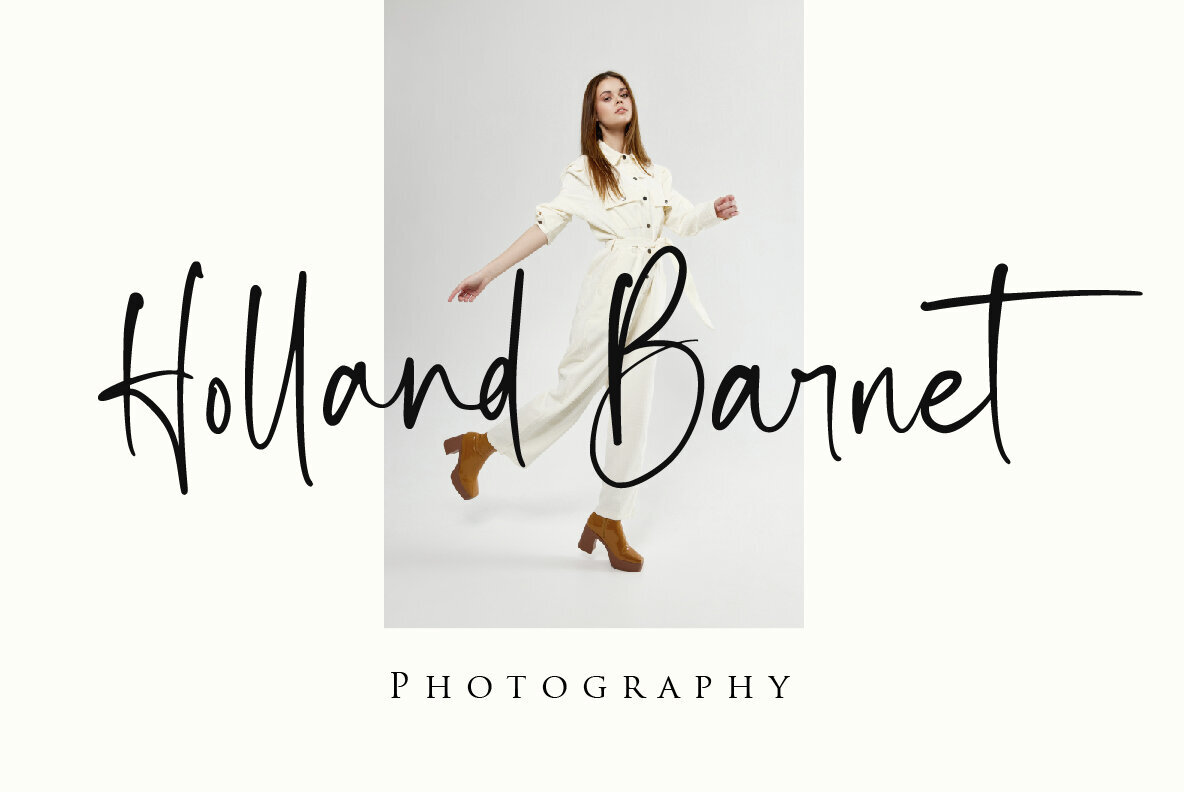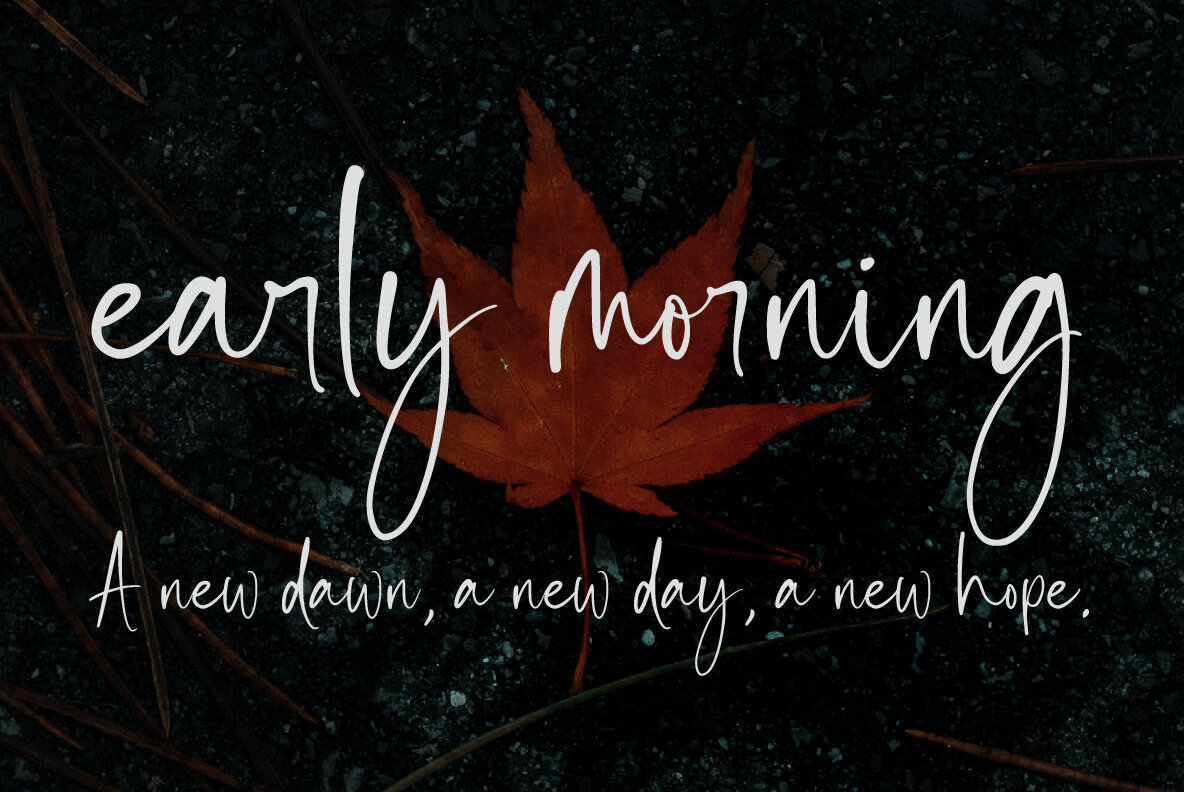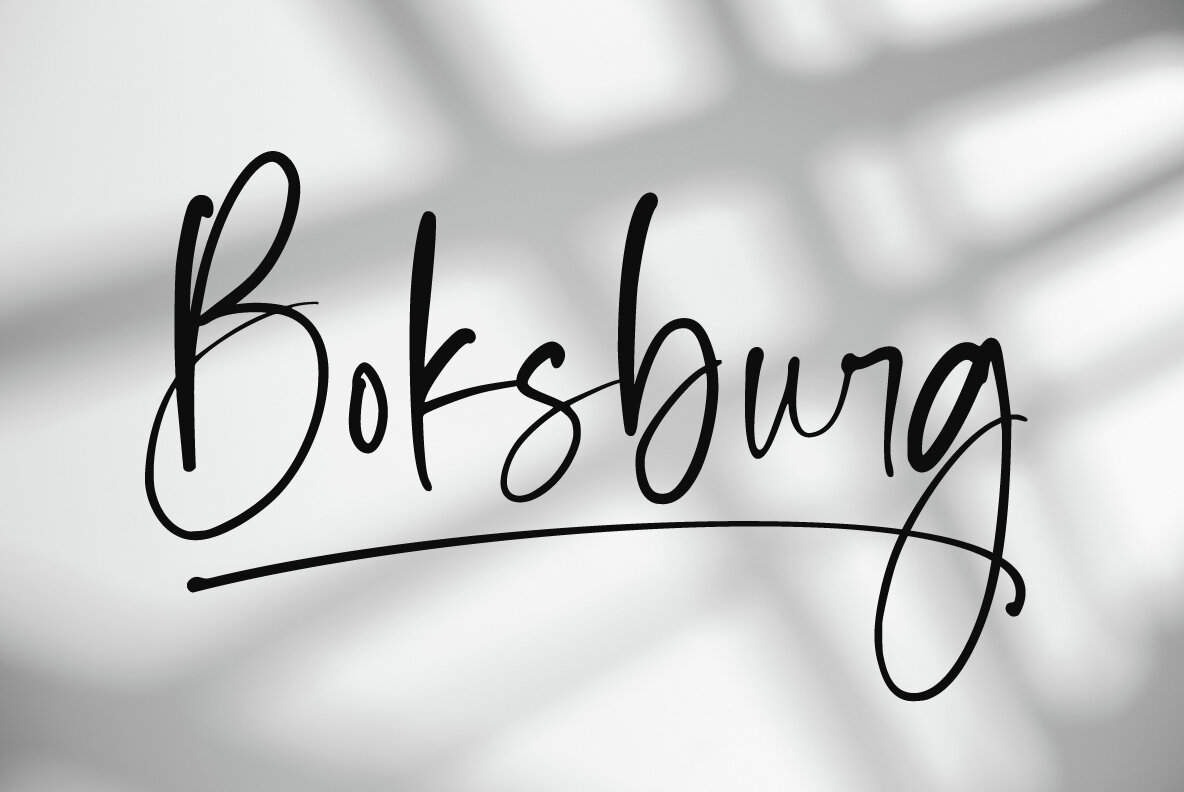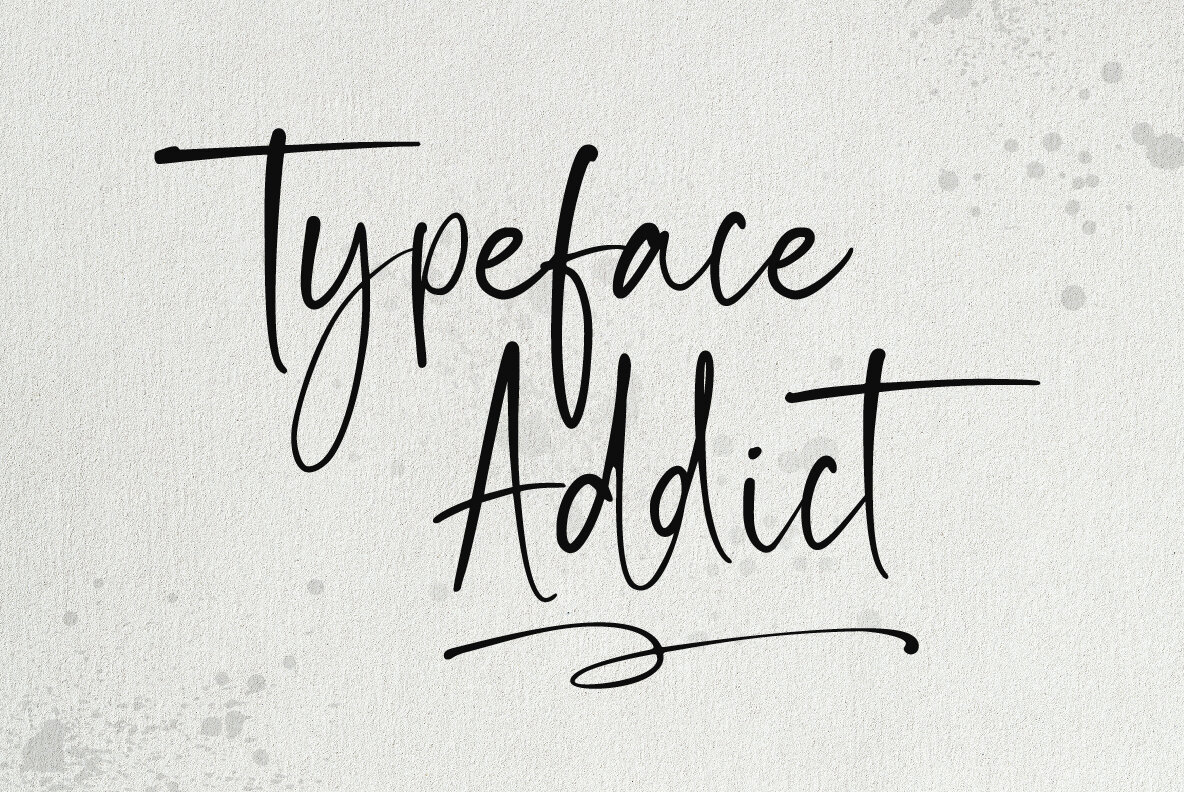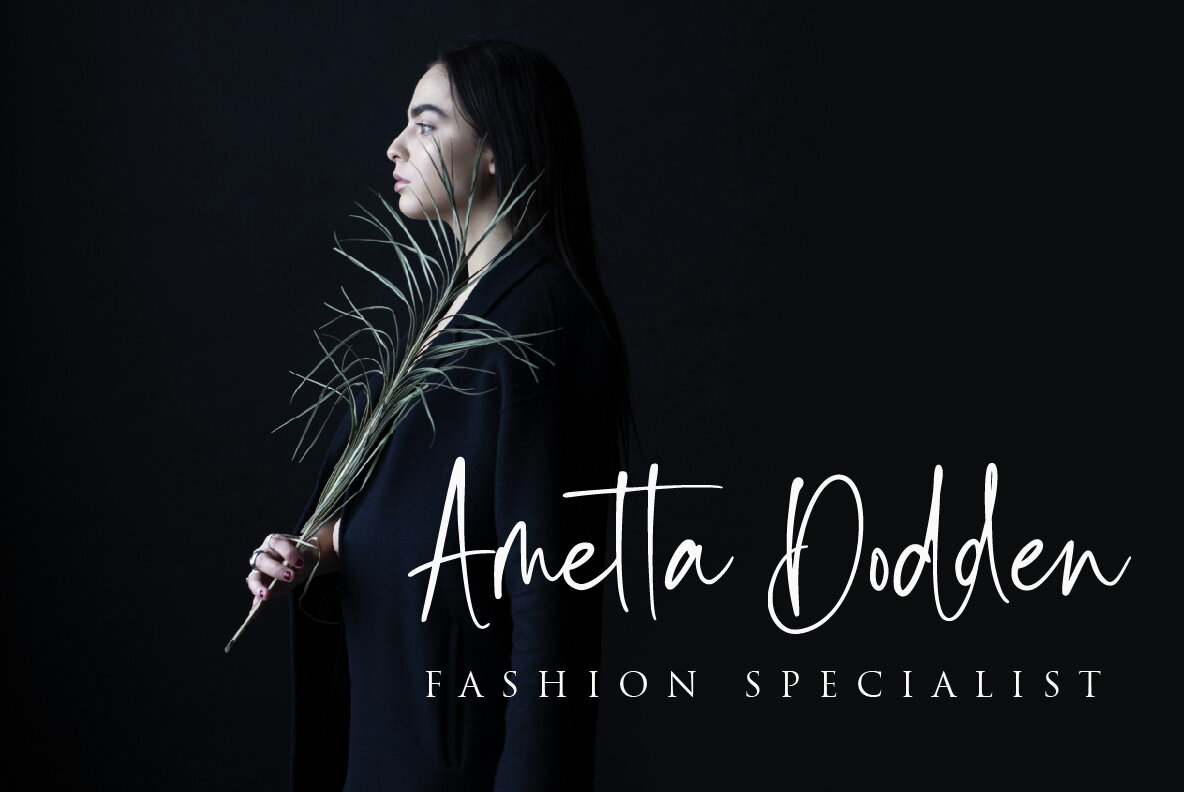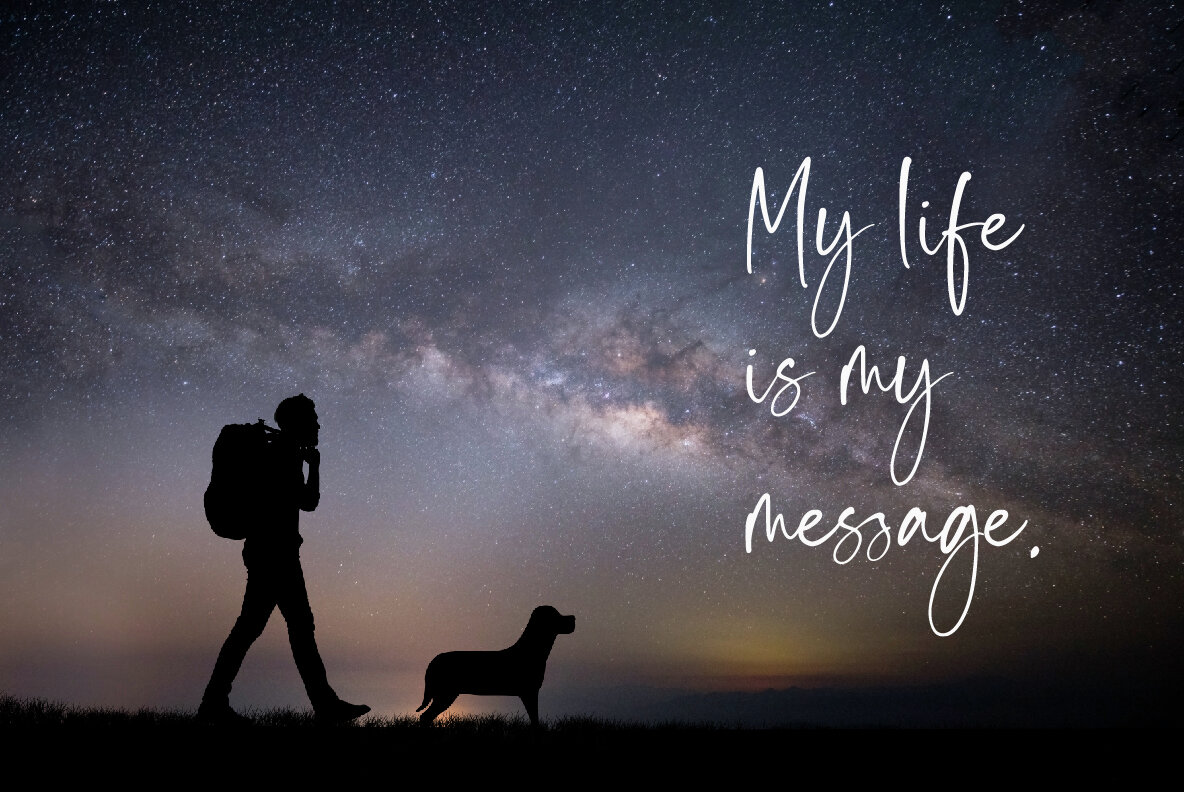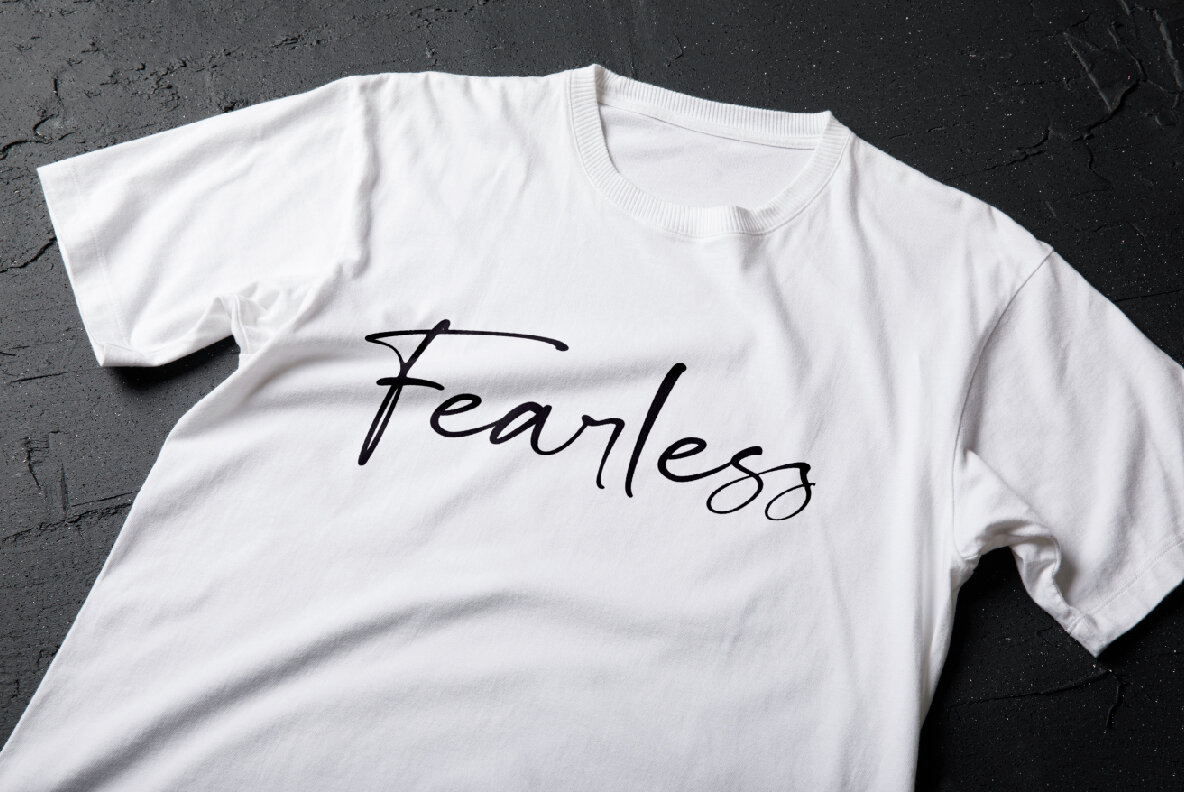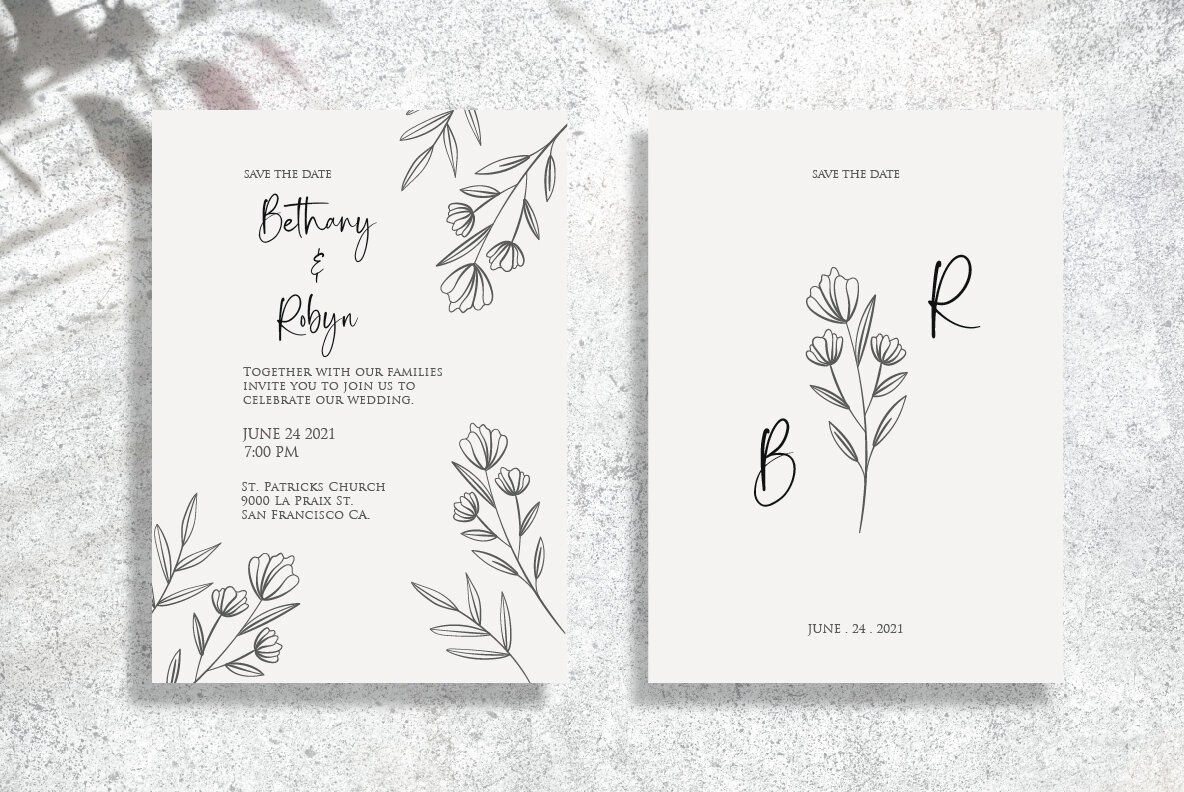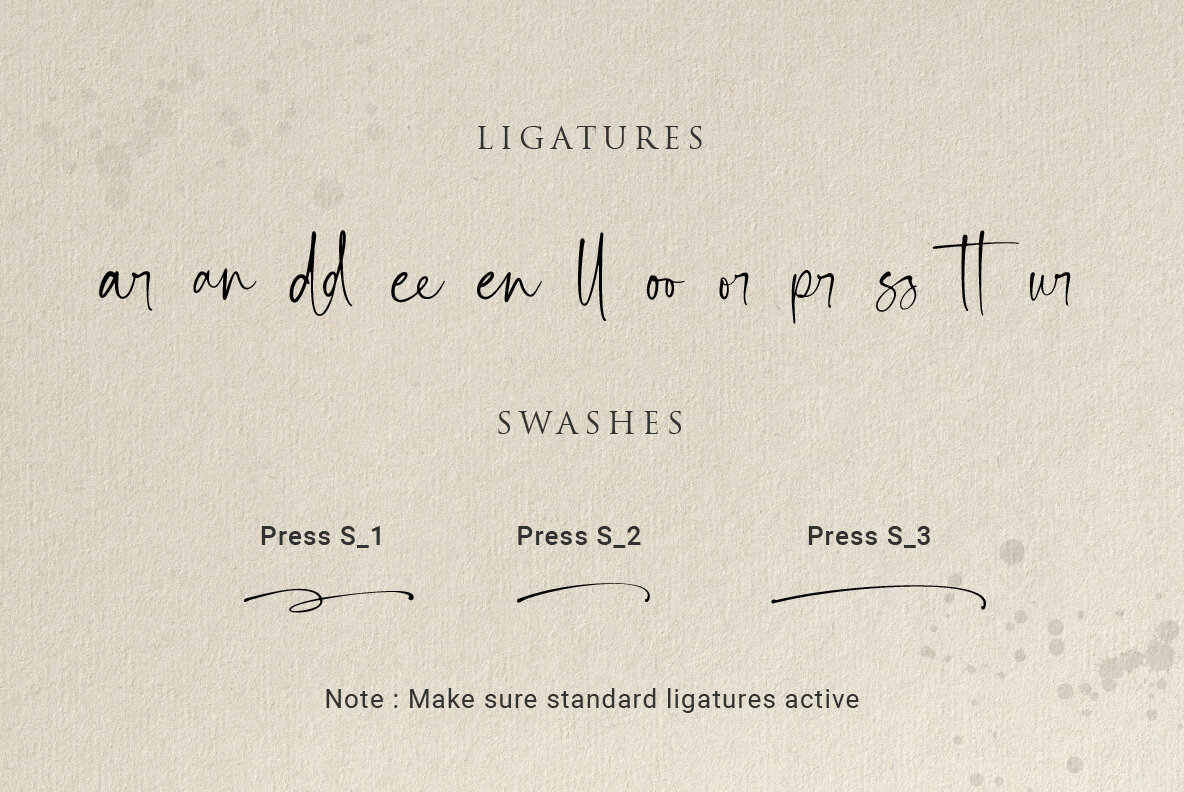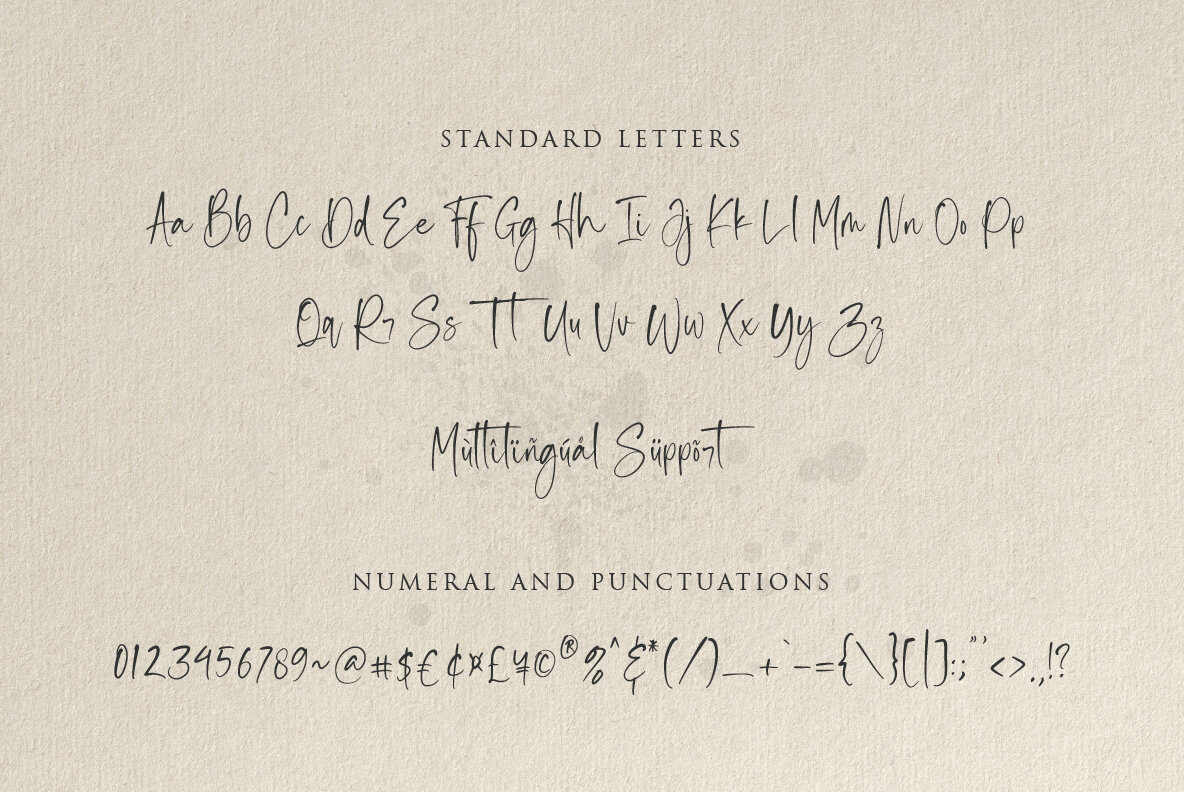
Inkgasm Font
Inkgasm Regular
Inkgasm is a casual script font tailored for a wide array of projects. Ideal for branding, invitations, merchandise, websites, advertisements, magazines, and more, it offers versatility and style.Inkgasm: A Casual Script Font for Diverse Projects